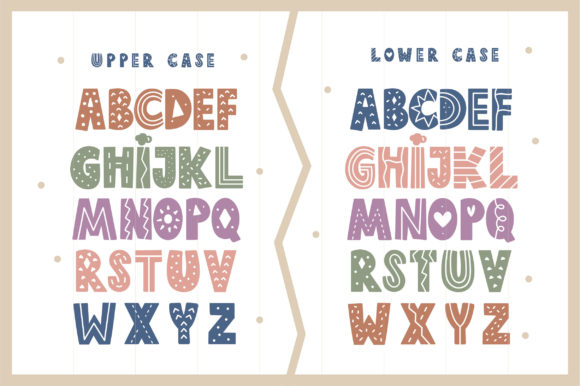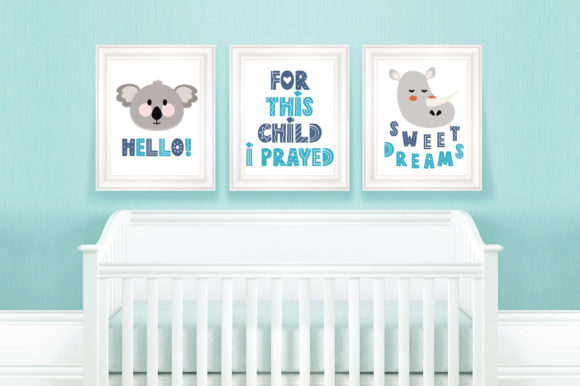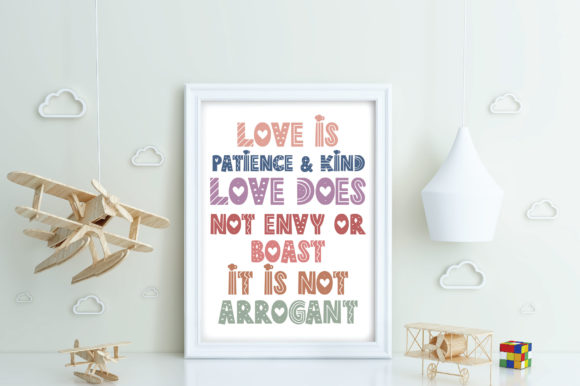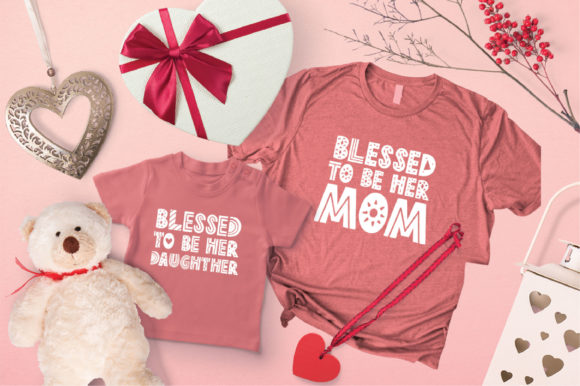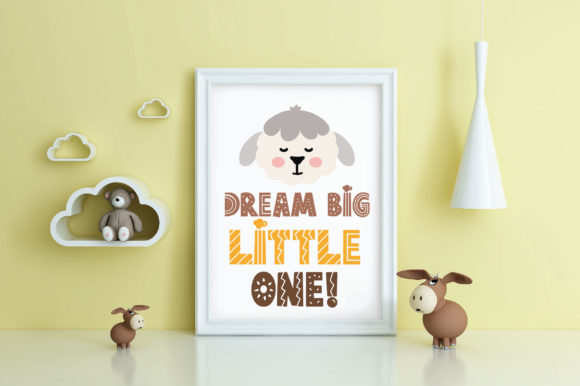
Introduction to Dingo Nursery Font
Dingo Nursery is a cute and fun display font.
Incredibly fun and bold, this font will make each of your children related designs stand out .
Key Features of Dingo Nursery Font
Why Choose Dingo Nursery Font?